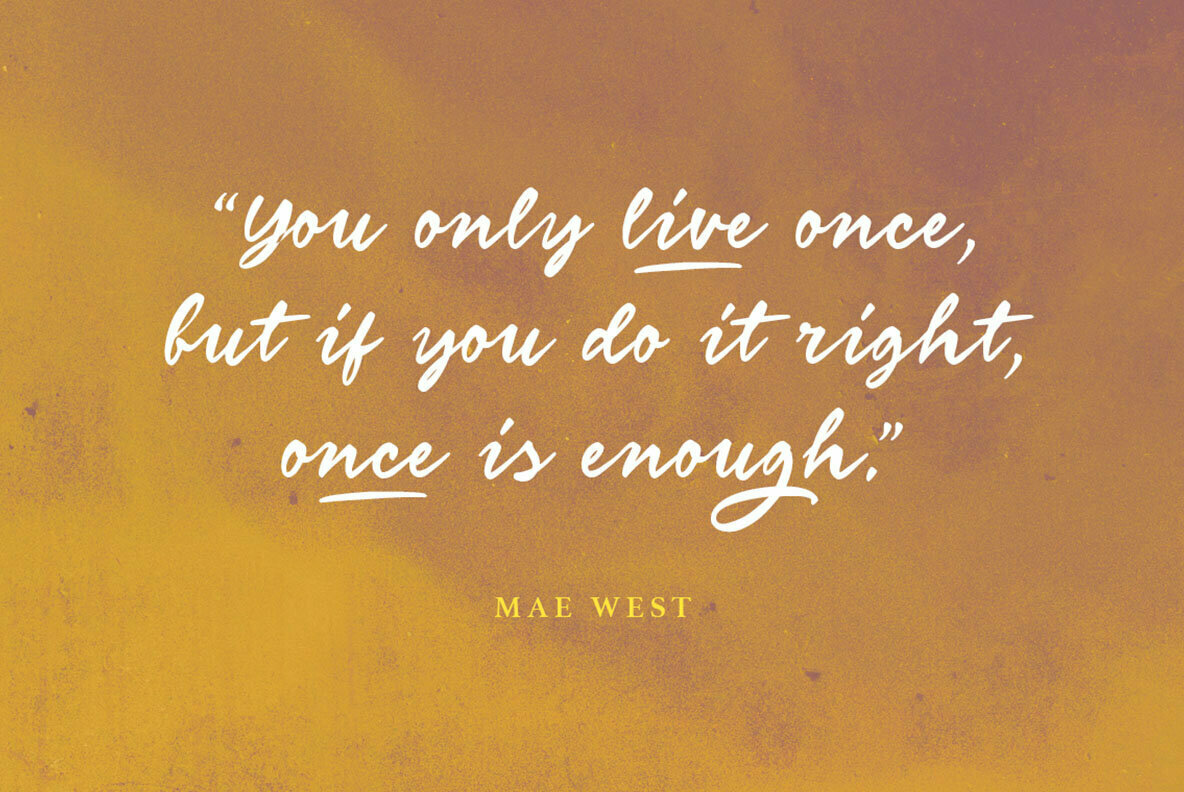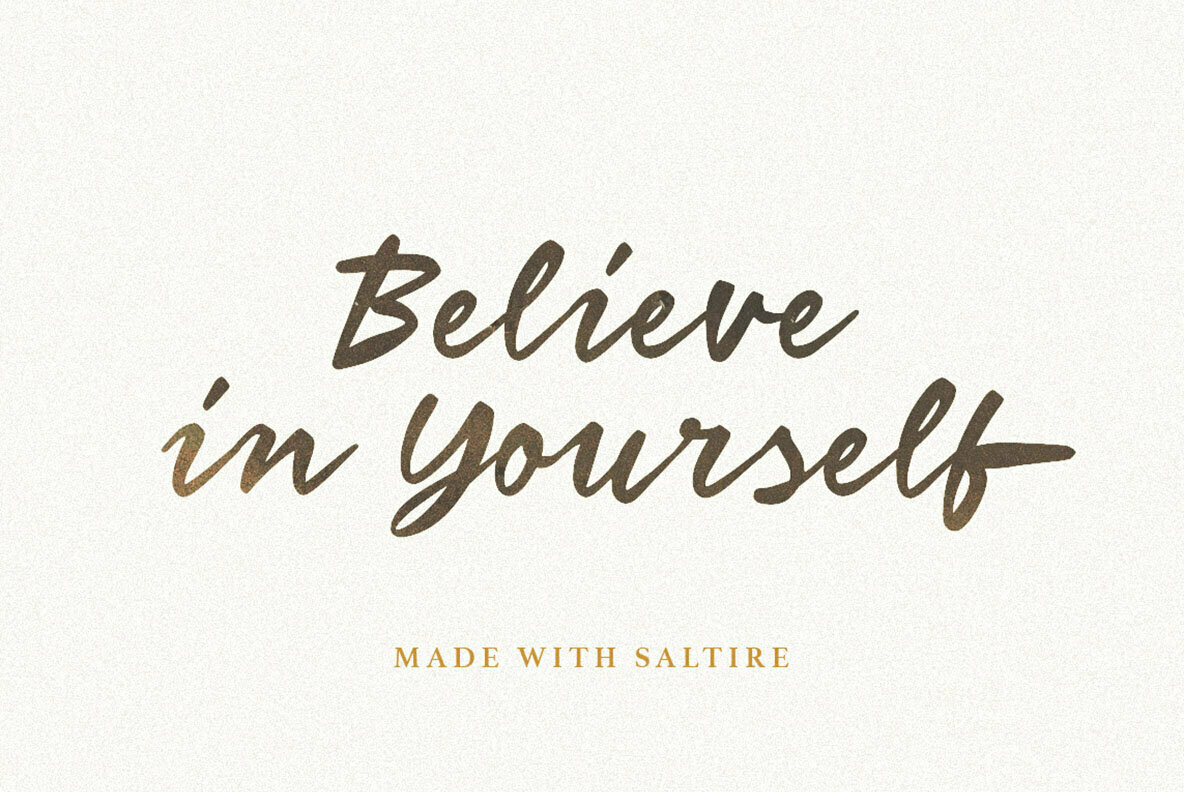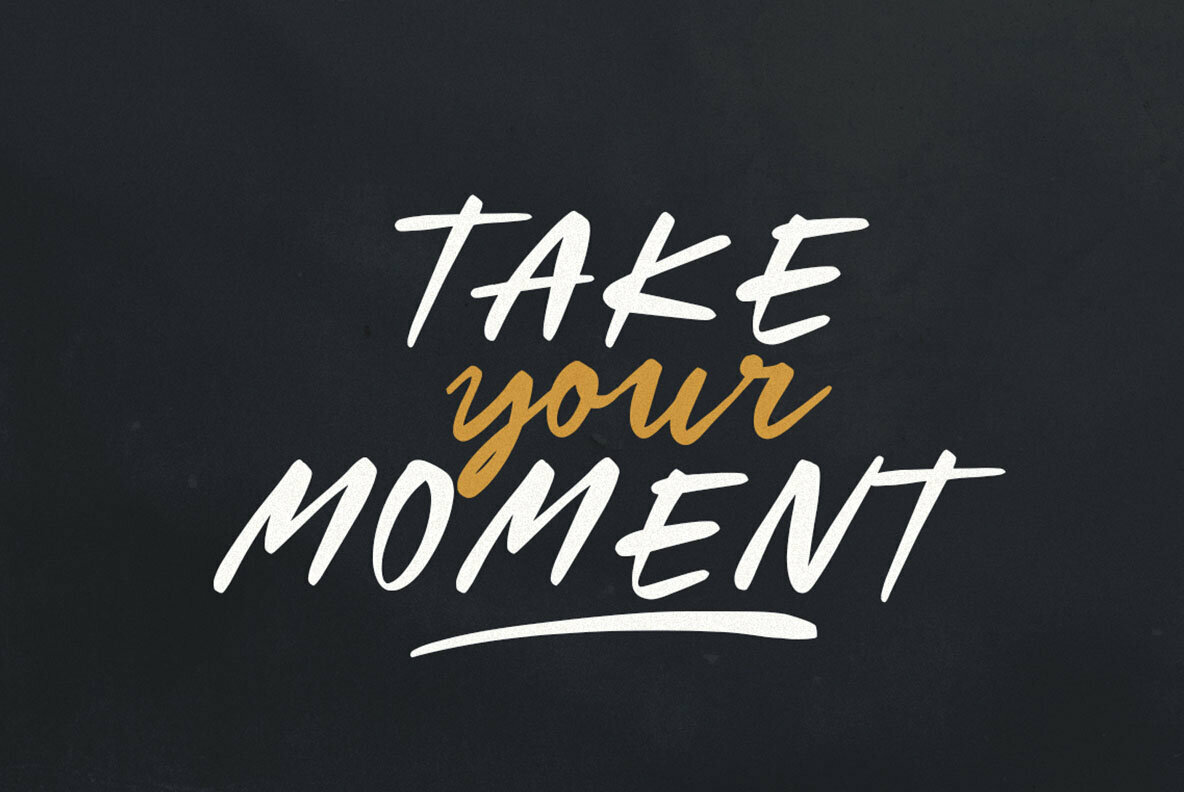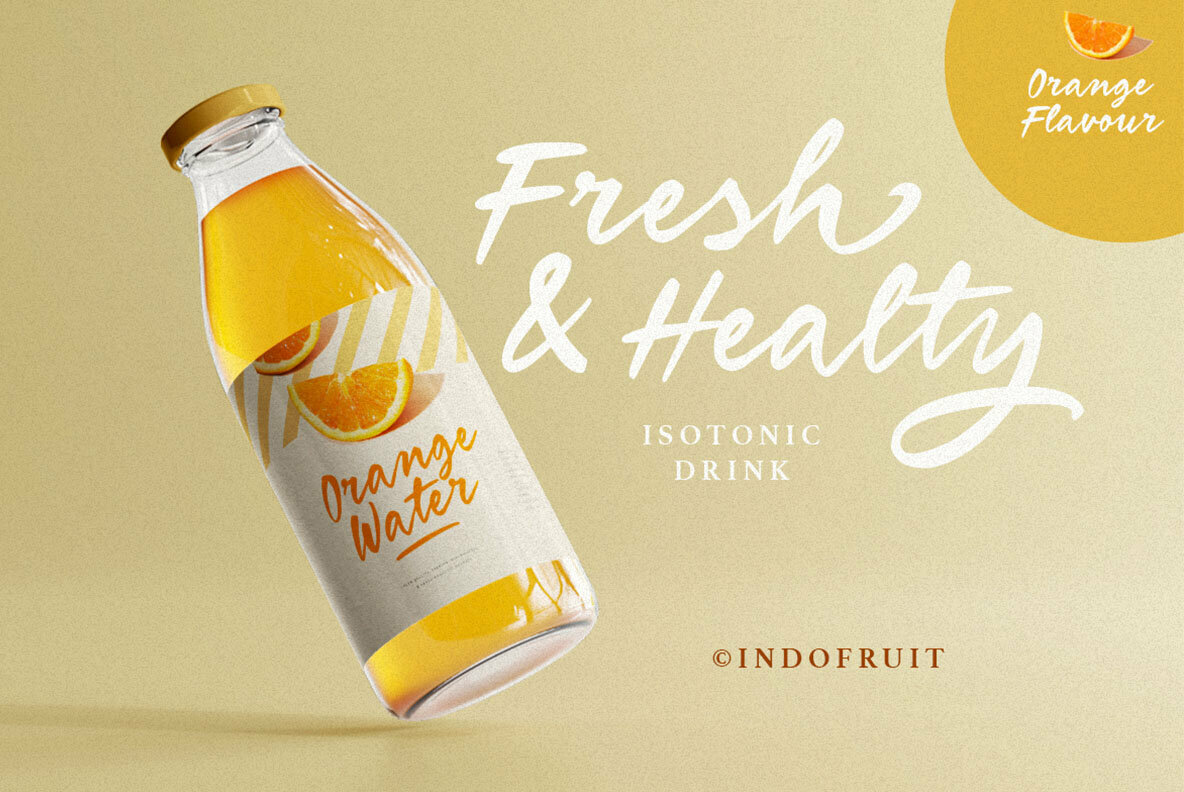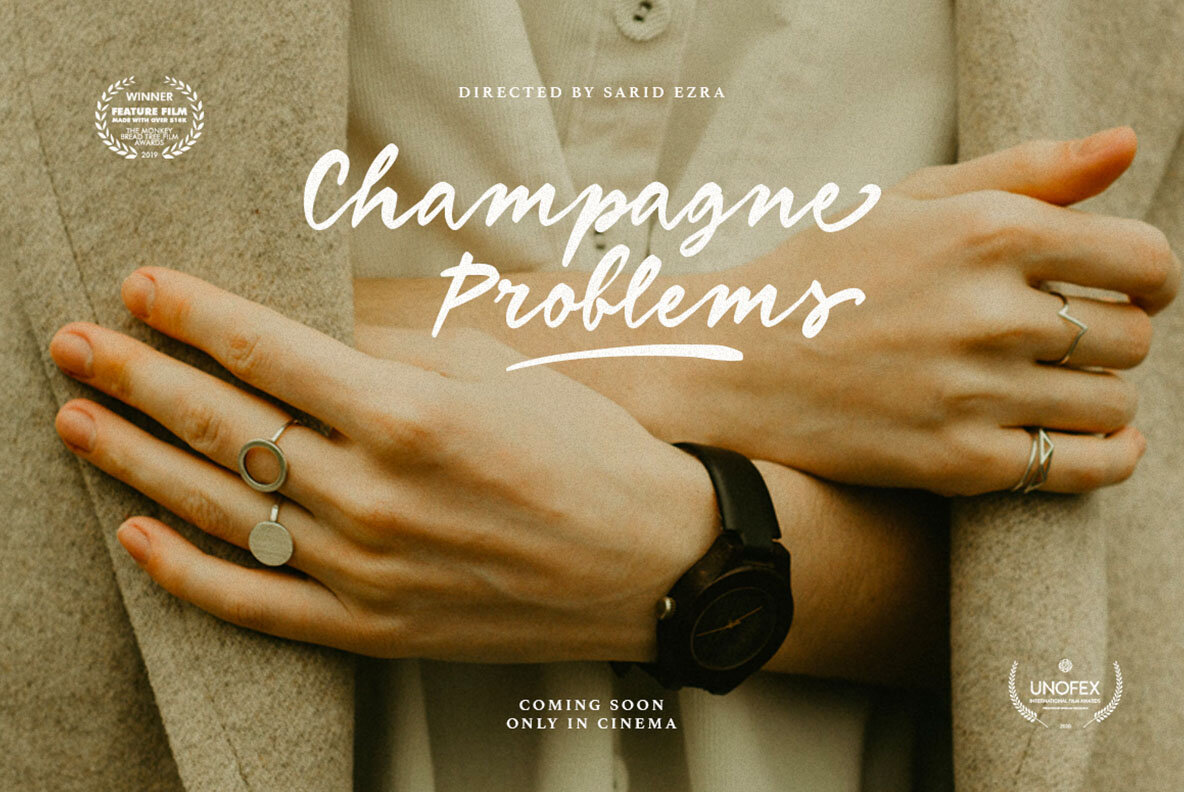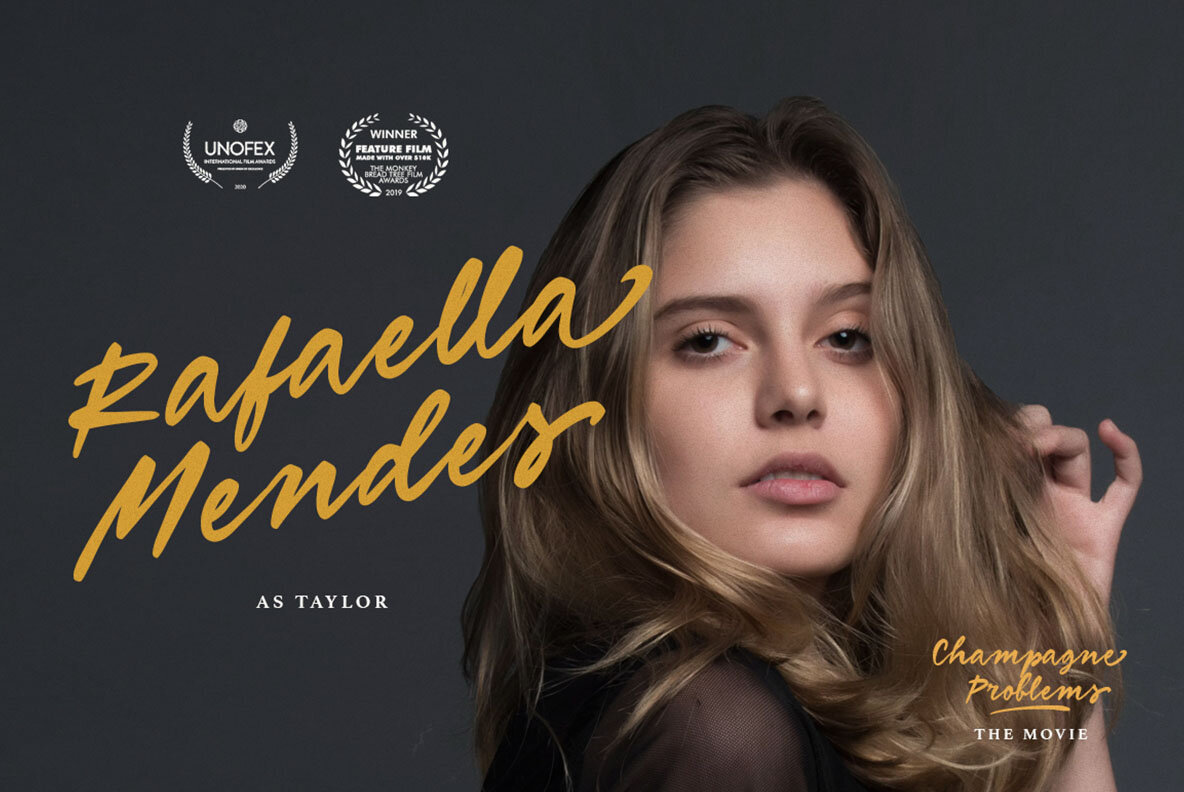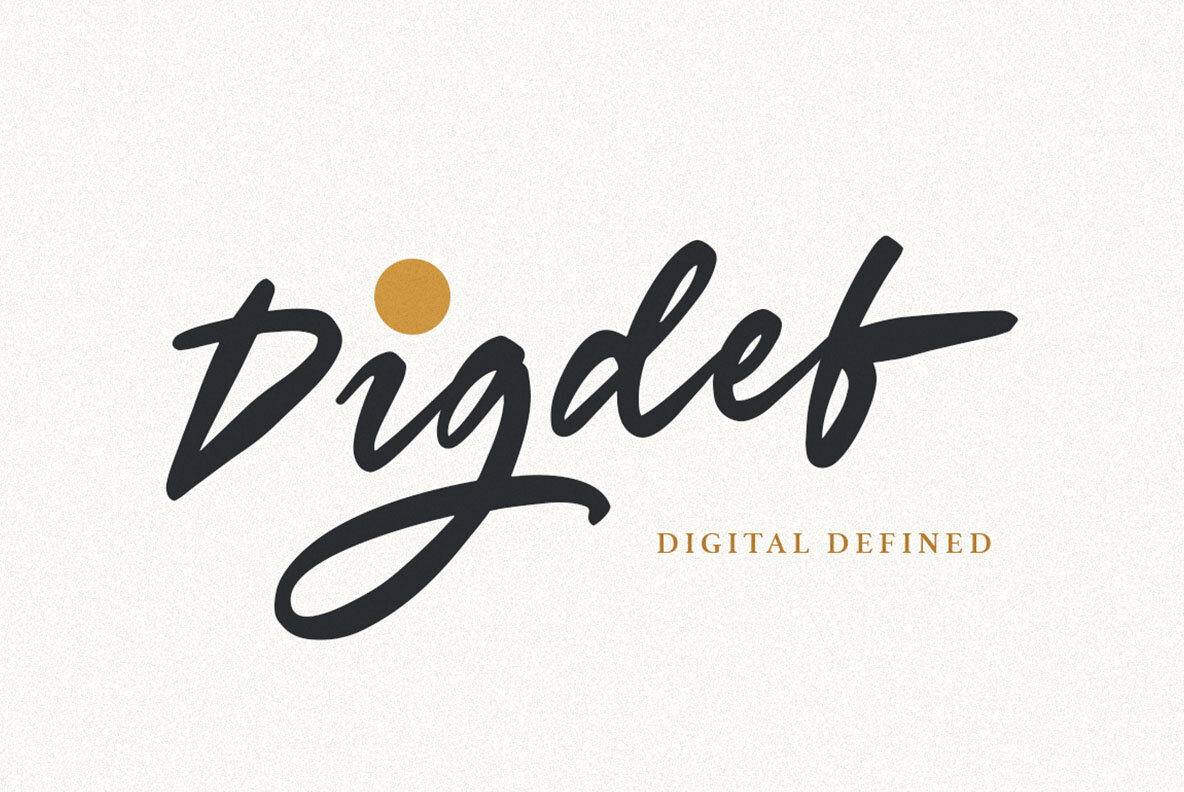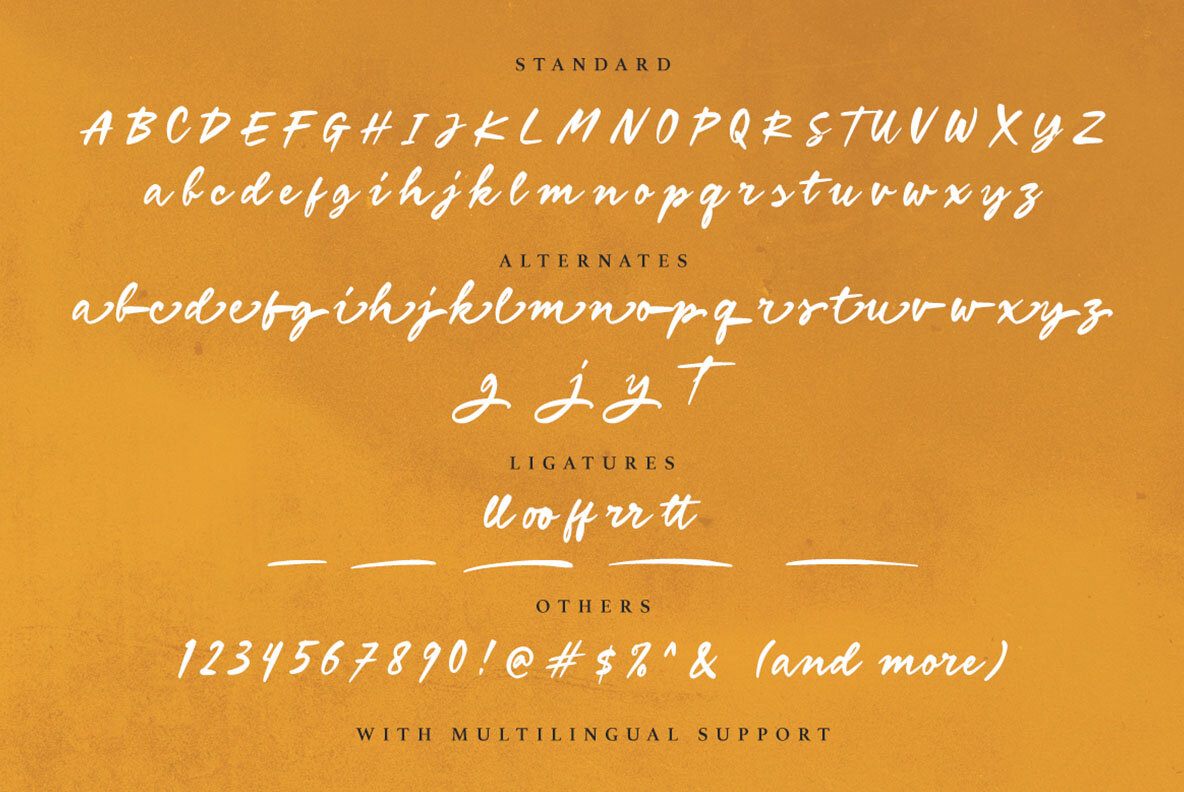
Saltire Font
Saltire Regular
Simplicity mingles with modernity in Saltire, a versatile script ideal for designers seeking elegance. Perfectly crafted for logos, headlines, and signage, this font enhances formal projects, from invitations to magazine layouts, greeting cards to elegant labels. For optimal use, employ applications that support OpenType features and Glyphs panels, such as Adobe software and Corel Draw, to fully utilize all glyph variations.Saltire: A Contemporary Script for Varied Applications